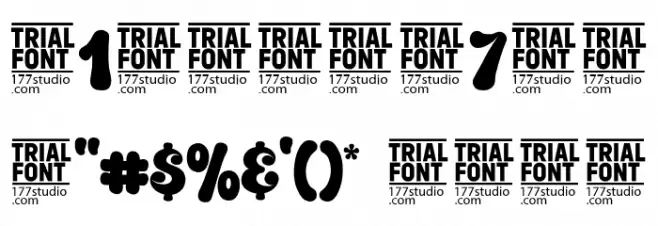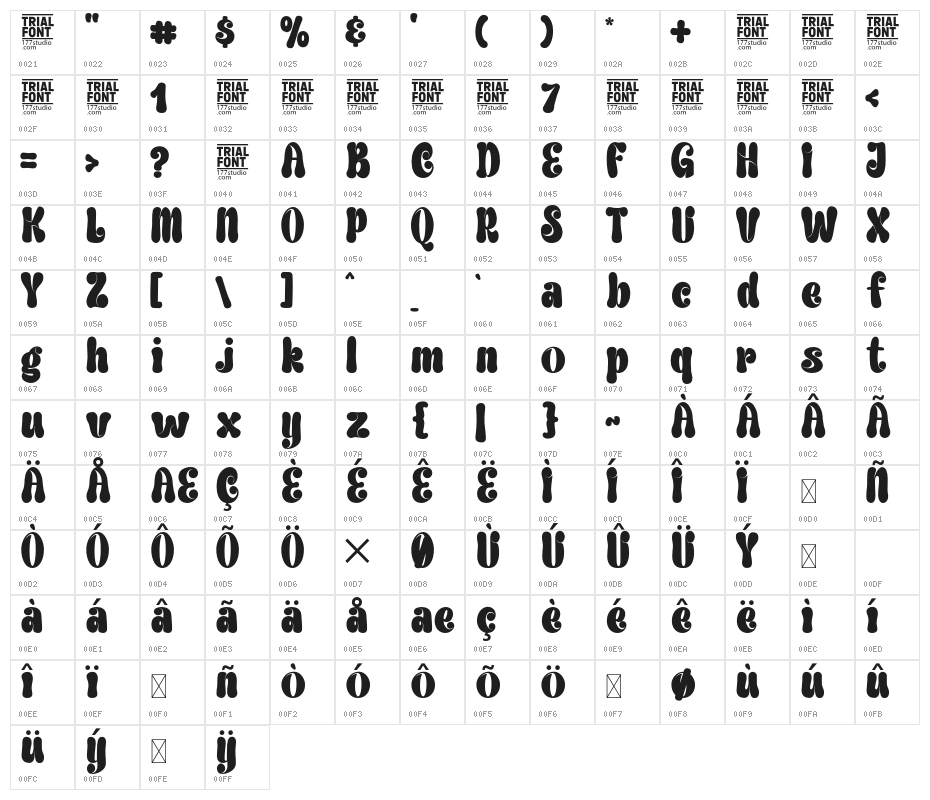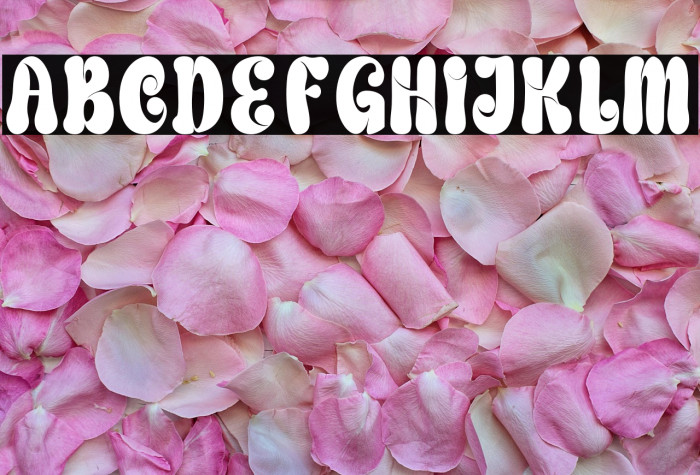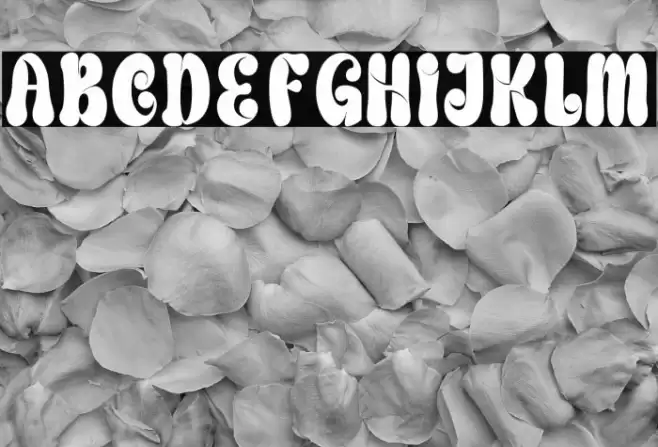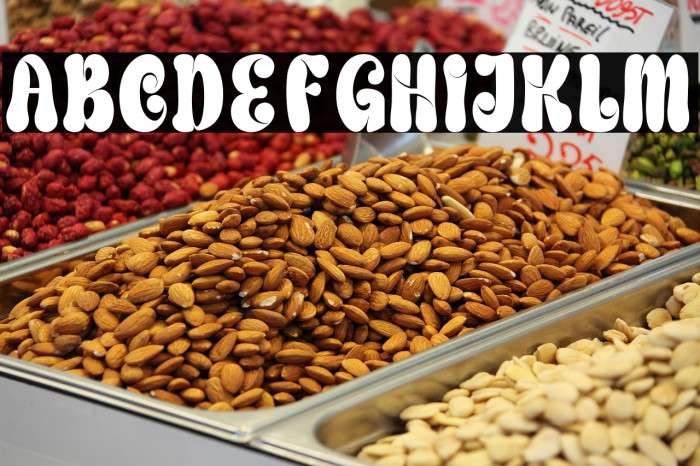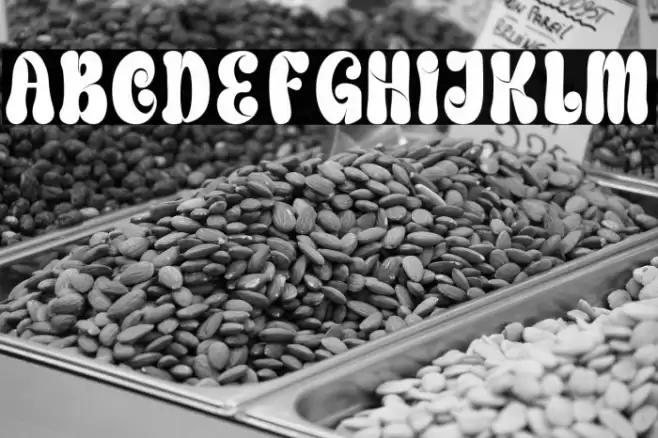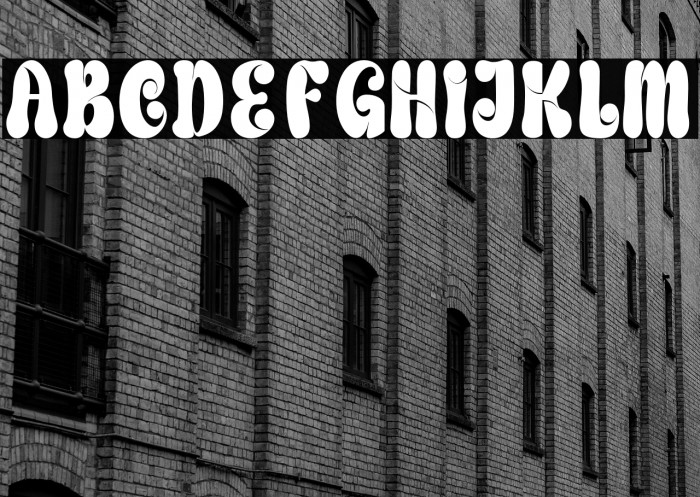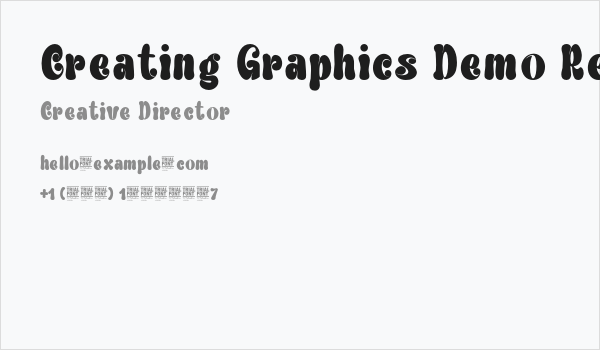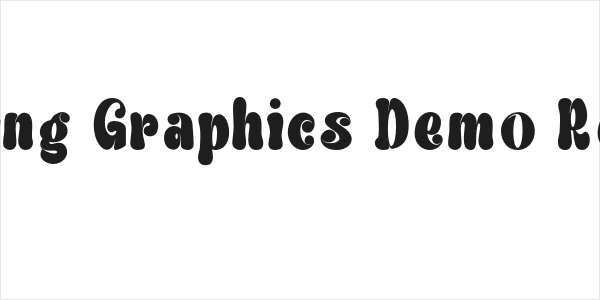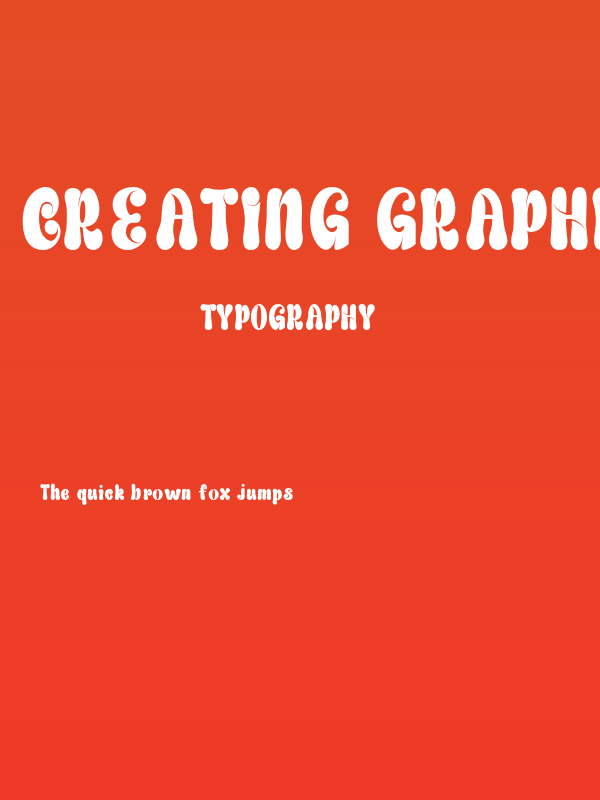
Creating Graphics Demo Regular Font
Creating Graphics Demo Regular Description
This font features a bold and playful design with rounded edges, giving it a friendly and approachable appearance. The characters are thick and have a consistent weight throughout, which adds to the boldness and makes it stand out. The rounded terminals and smooth curves contribute to a whimsical and fun aesthetic, making it suitable for creative and informal projects. The font maintains a uniform width across characters, ensuring readability while adding a touch of uniqueness with its slightly exaggerated forms.
| Overall Style | Playful, Fun, Whimsical |
| Proposed Projects | Ideal for children's books, playful branding, posters, and creative invitations. |